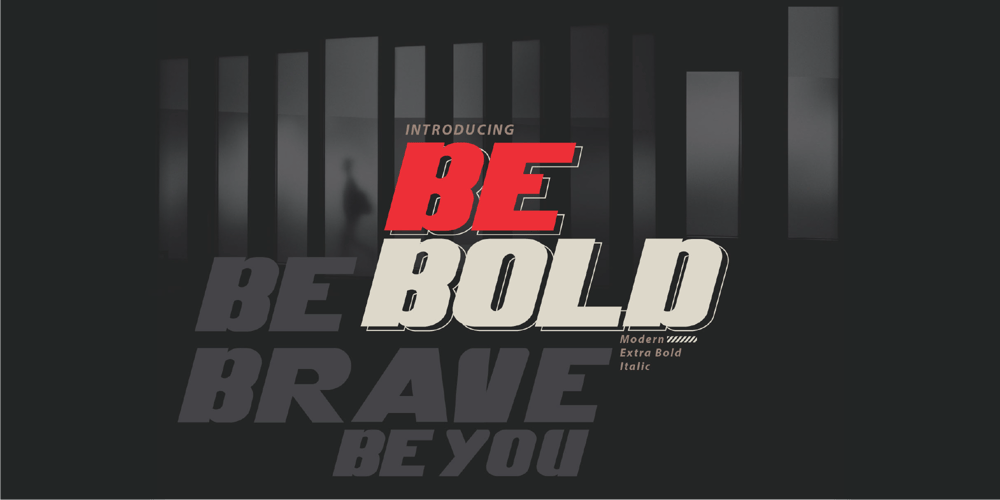
BE BOlD Font Family was designed by Wahyu Aji Prasetyo and published by WAP Type. BE BOlD contains 1 styles and family package options. Be Bold is an incredibly unique display font. Masterfully designed to become a true favorite, this font has the potential to bring each of your creative ideas to the highest level!